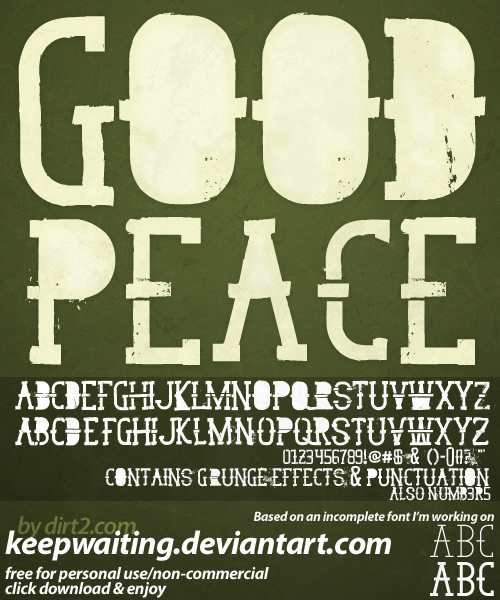
Font I made today, Grunge/Western/Stencil/Serif sort of looking.
Hopefully unique as it was made completely original from scratch.
Alphabet has both open and closed letters for your open and close enjoyment.